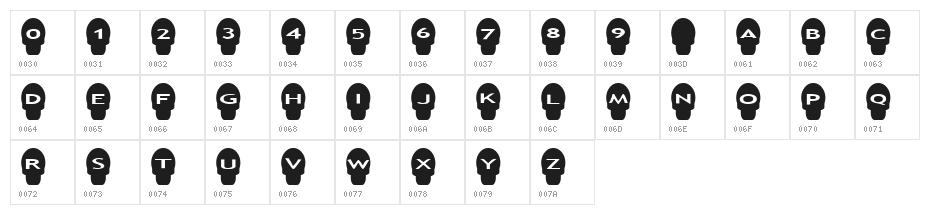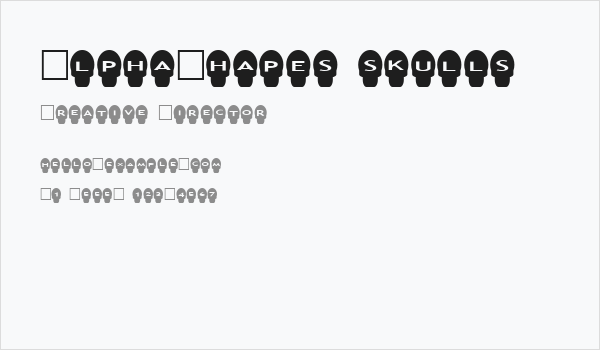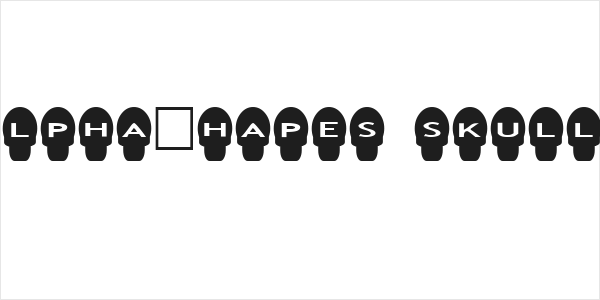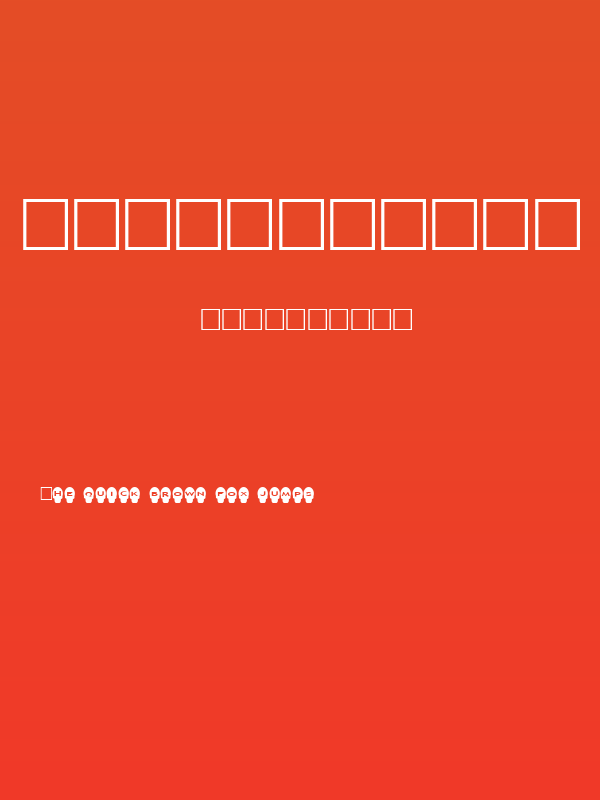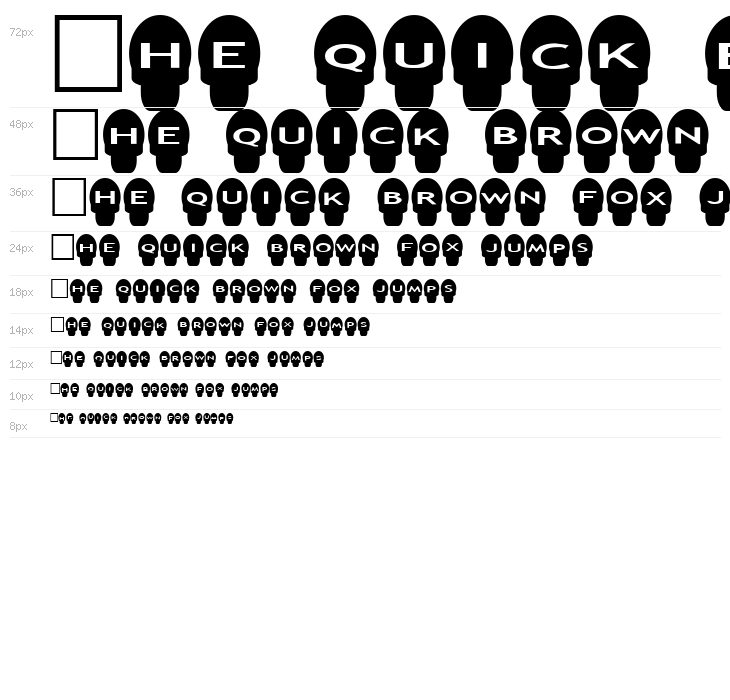
AlphaShapes skulls Font
AlphaShapes skulls Description
This unique font features characters embedded within stylized skull shapes, creating a bold and eye-catching design. Each letter and number is centered within a solid black skull silhouette, providing a striking contrast that enhances readability while maintaining a decorative appeal. The font is ideal for projects that require a gothic or Halloween-themed aesthetic, offering a playful yet edgy vibe. The characters are uniformly spaced, ensuring a consistent and balanced appearance across different uses. The bold design and high contrast make it suitable for headlines, posters, and creative branding projects where a distinctive and memorable look is desired.
| Proposed Projects | Ideal for Halloween-themed designs, edgy branding, posters, and creative projects requiring a distinctive look. |